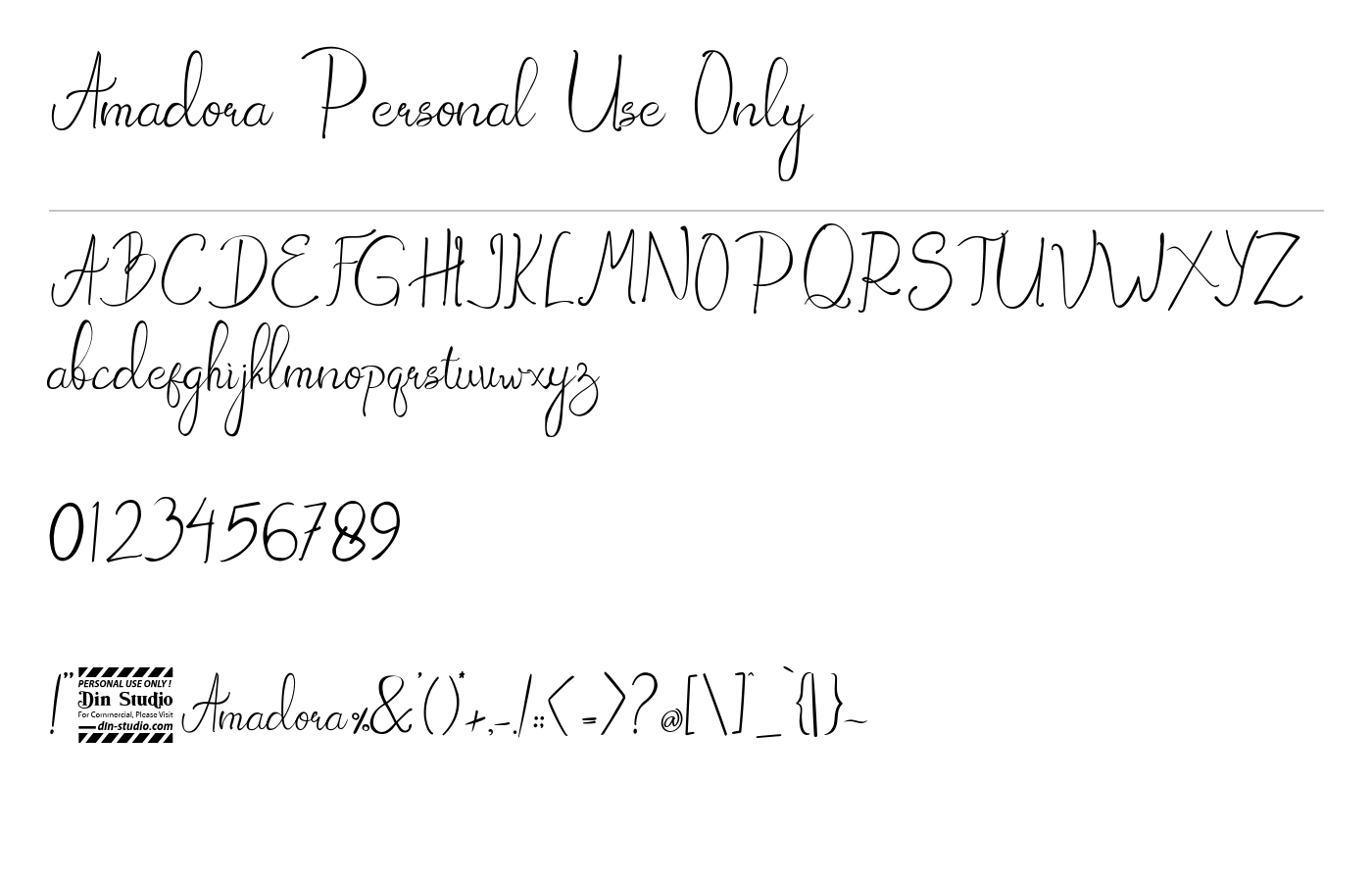
Amadora Personal Use Only is a delicate, elegant script font with a handwritten feel, featuring slender, flowing strokes and a slightly whimsical touch. Its tall x-height and thin lines make it ideal for personal projects, invitations, and branding that seeks a graceful, feminine, and sophisticated look. This font works best in contexts where a light, airy, and charming style is desired.
Amadora Personal Use Only Font
About Amadora Personal Use Only Font